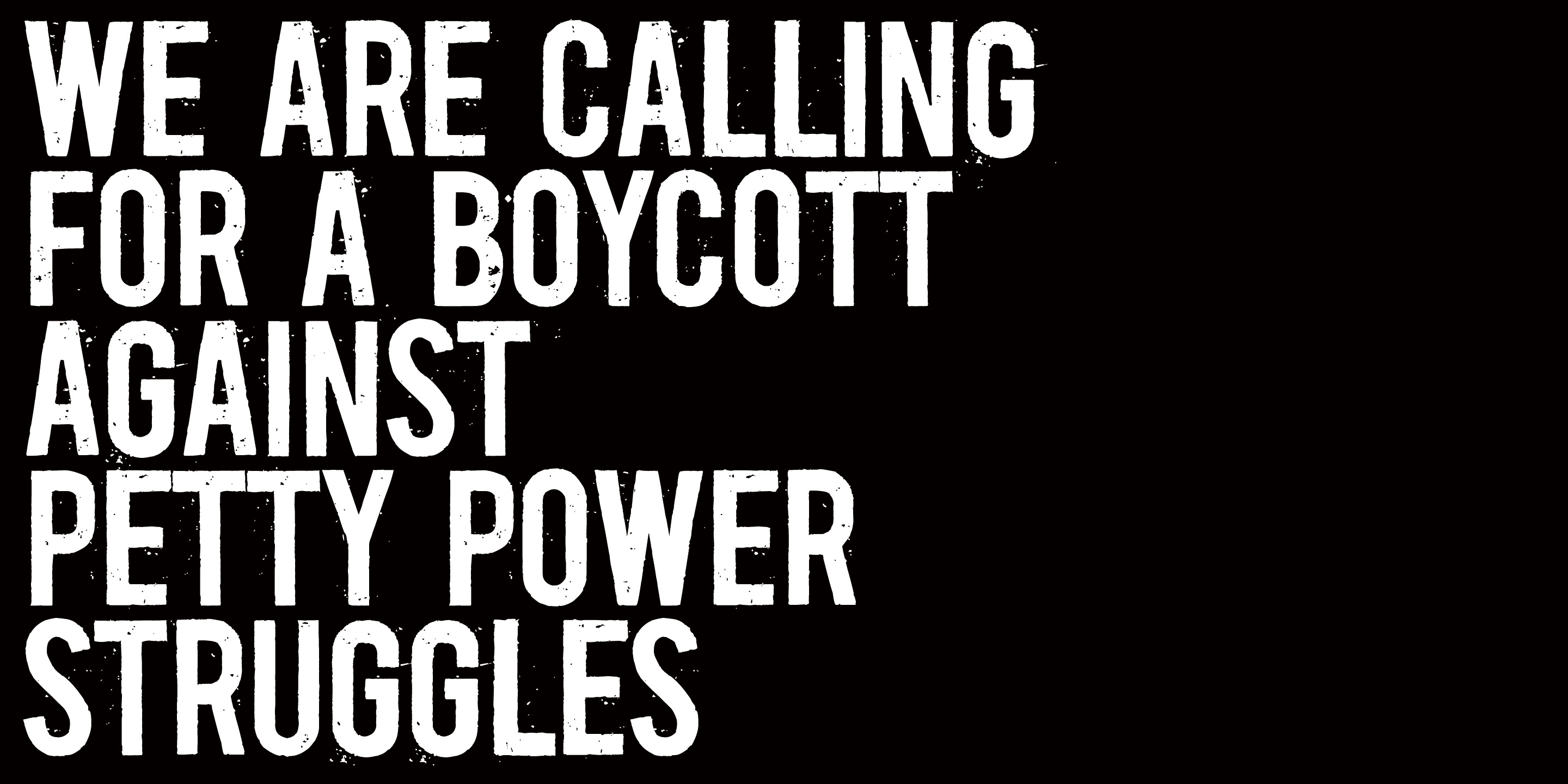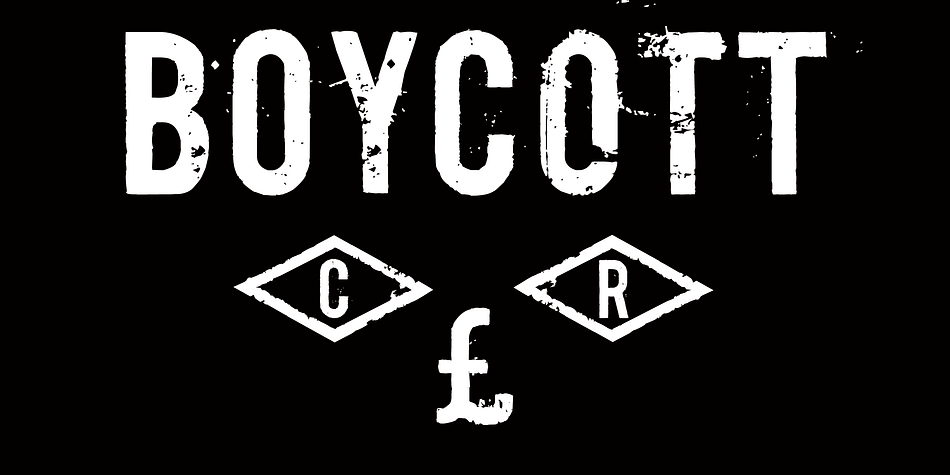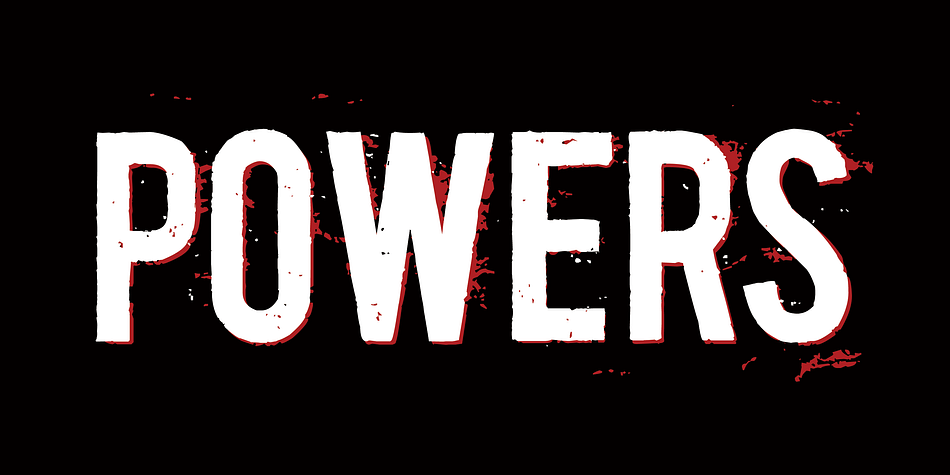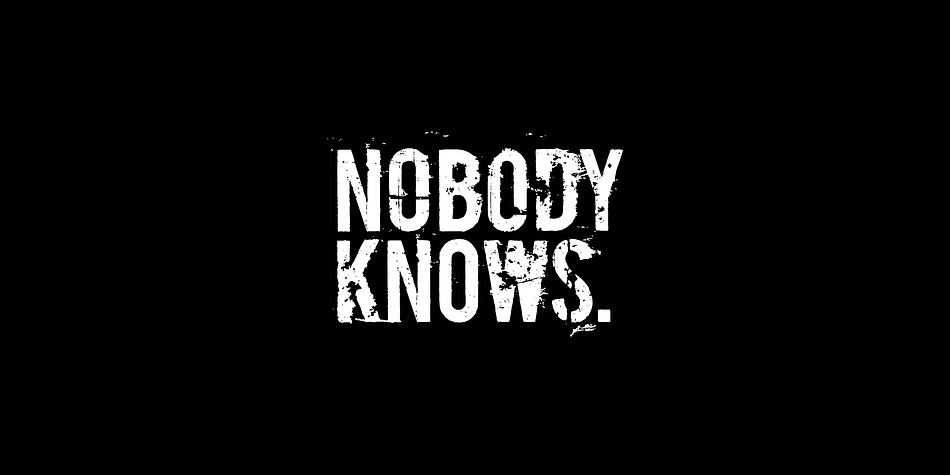
Boycott is a grunge font published by Dharma Type.
We are calling for a boycott against petty power struggles. This grungy fonts won second prize at the best font 2006 at myfonts.